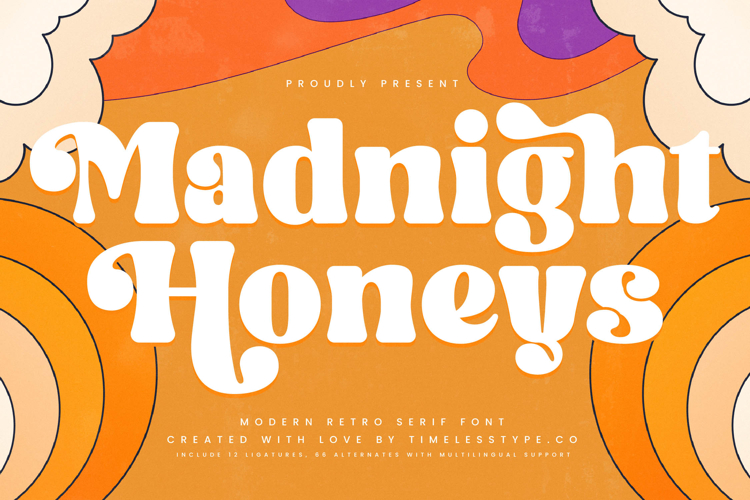
Madnight Honeys - Modern Retro Serif
Madnight Honeys Typeface is a modern retro serif font that blends playful charm with bold vintage aesthetics. Featuring 12 ligatures, 66 alternates, and multilingual support, this typeface delivers versatility and personality, allowing designers to create vibrant and eye-catching designs. Its chunky letterforms, smooth curves, and decorative terminals capture the nostalgic feel of the 70s while maintaining a modern twist, making it ideal for projects that aim to combine fun, warmth, and bold character.